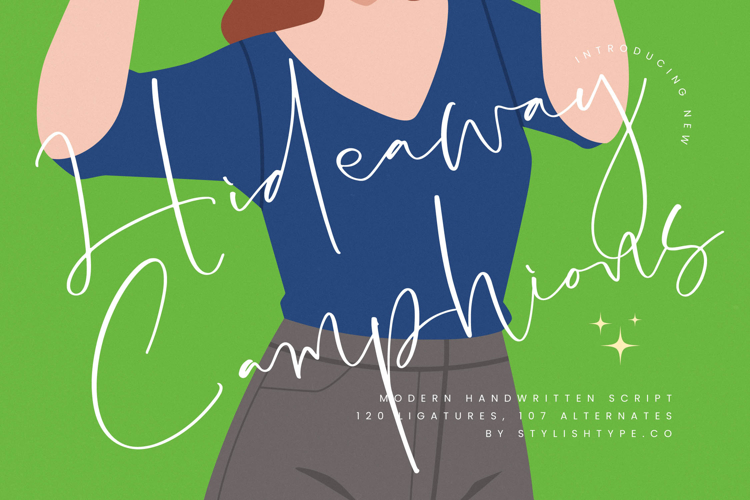
Hideaway Camphions - Modern Handwritten Script
Hideaway Camphions - Modern Handwritten Script, a contemporary typeface meticulously crafted to capture the spontaneous joy of genuine handwriting. This energetic script features exceptionally long, graceful ascenders and descenders that weave effortlessly through the composition, demanding attention without overwhelming the viewer. Its organic flow and delicate stroke variation make it an immediate asset for achieving an inviting yet highly stylized aesthetic across digital and print media.